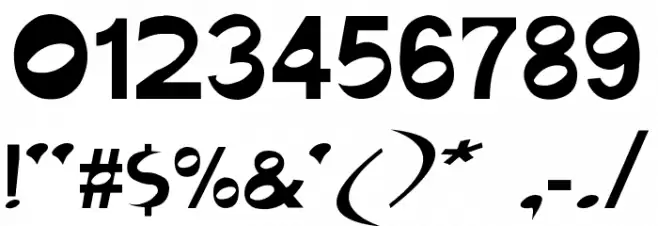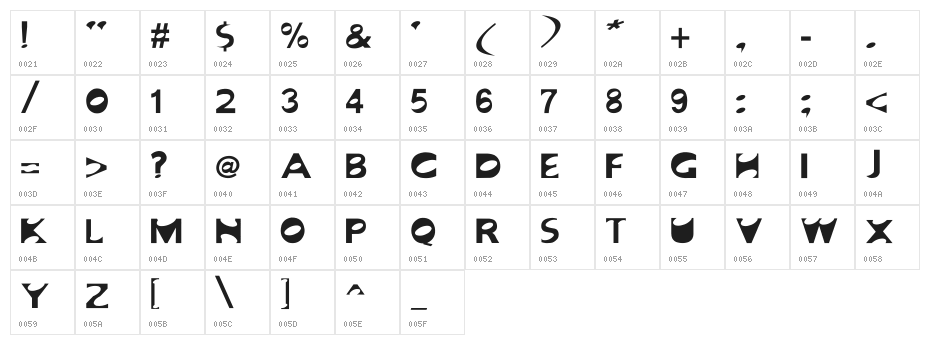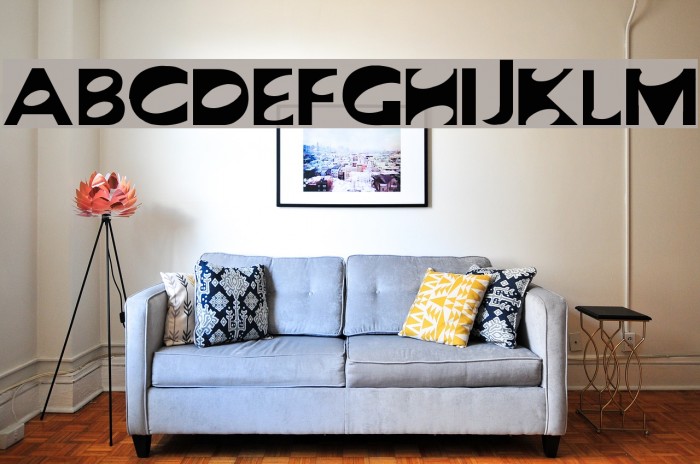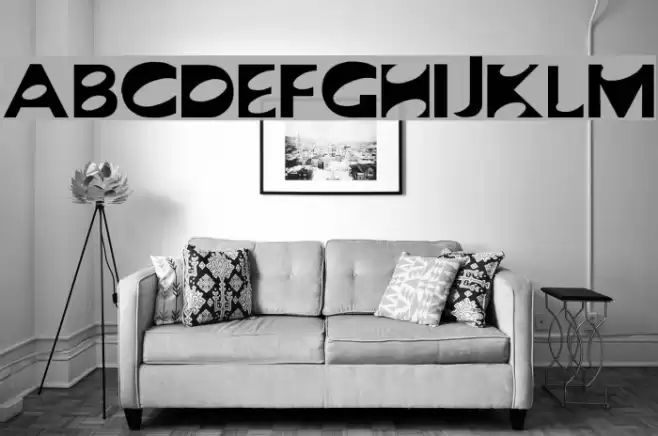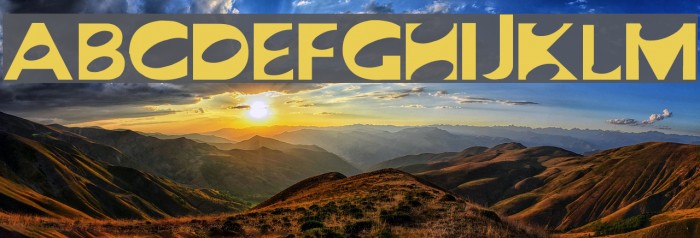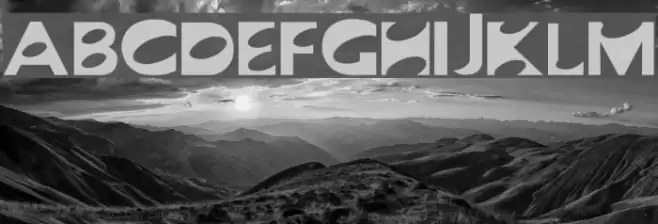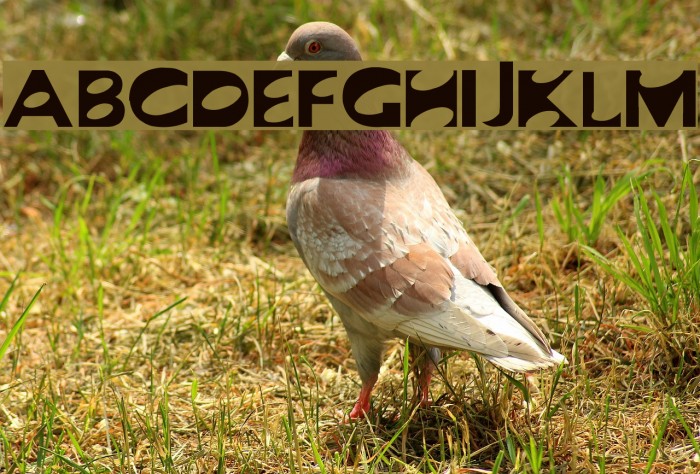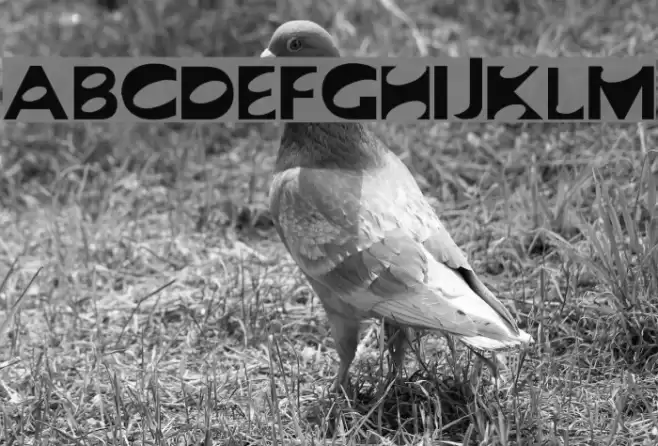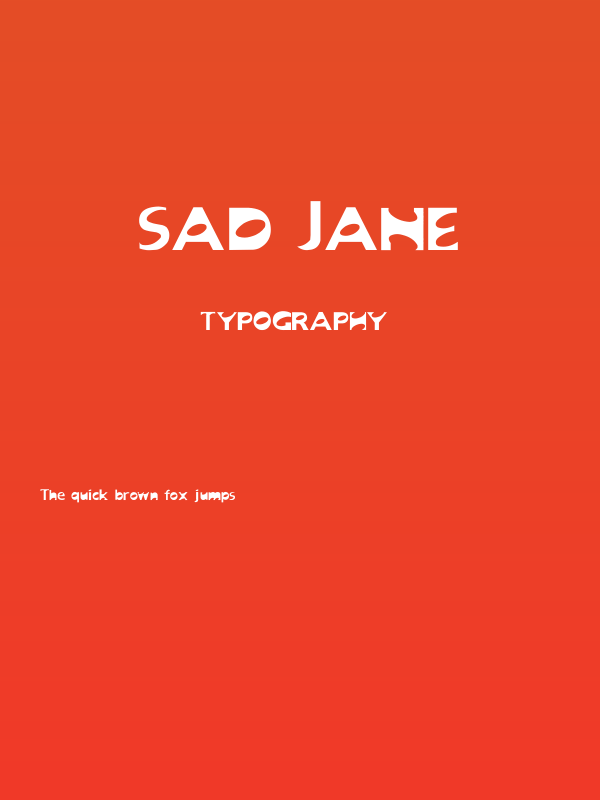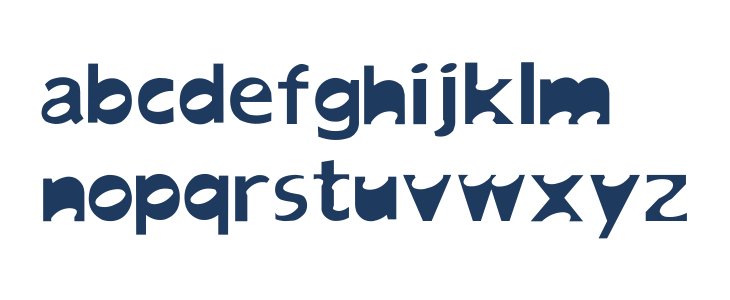
Sad Jane Font
This font features a bold and playful design with a unique, artistic flair. The characters are crafted with a mix of sharp angles and smooth curves, creating a dynamic and eye-catching appearance. The uppercase letters are particularly striking, with exaggerated forms that give a sense of movement and energy. The lowercase letters maintain a consistent style, offering a harmonious balance between the two cases. Numbers and special characters are designed to match the boldness and creativity of the alphabet, ensuring a cohesive look across all text. The font's distinct style makes it ideal for projects that require a strong visual impact.
| Proposed Projects | Ideal for posters, branding, packaging, and any creative project needing a bold statement. |